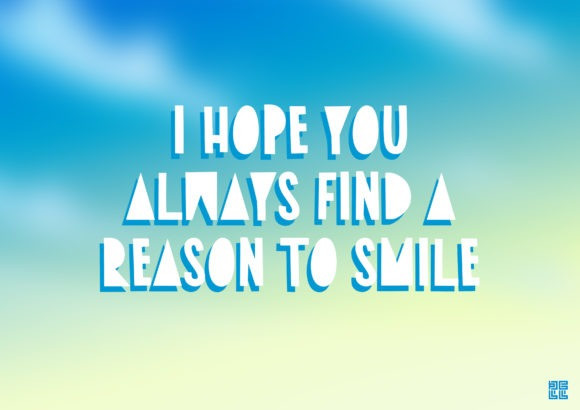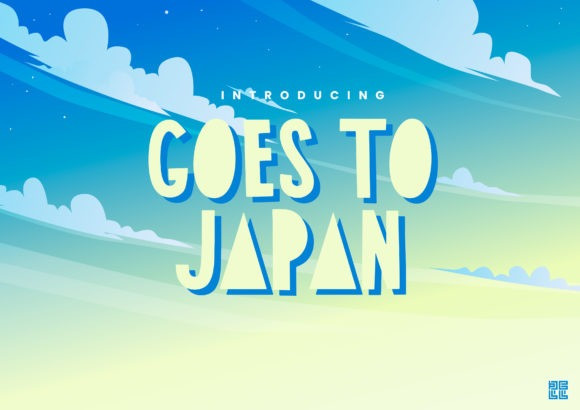
Goes To Japan Font
Goes to Japan Display Font is a fun display typeface. It will lift your design and add a cheeky touch to each of your creations. Use this font for your designs and explore its endless possibilities.